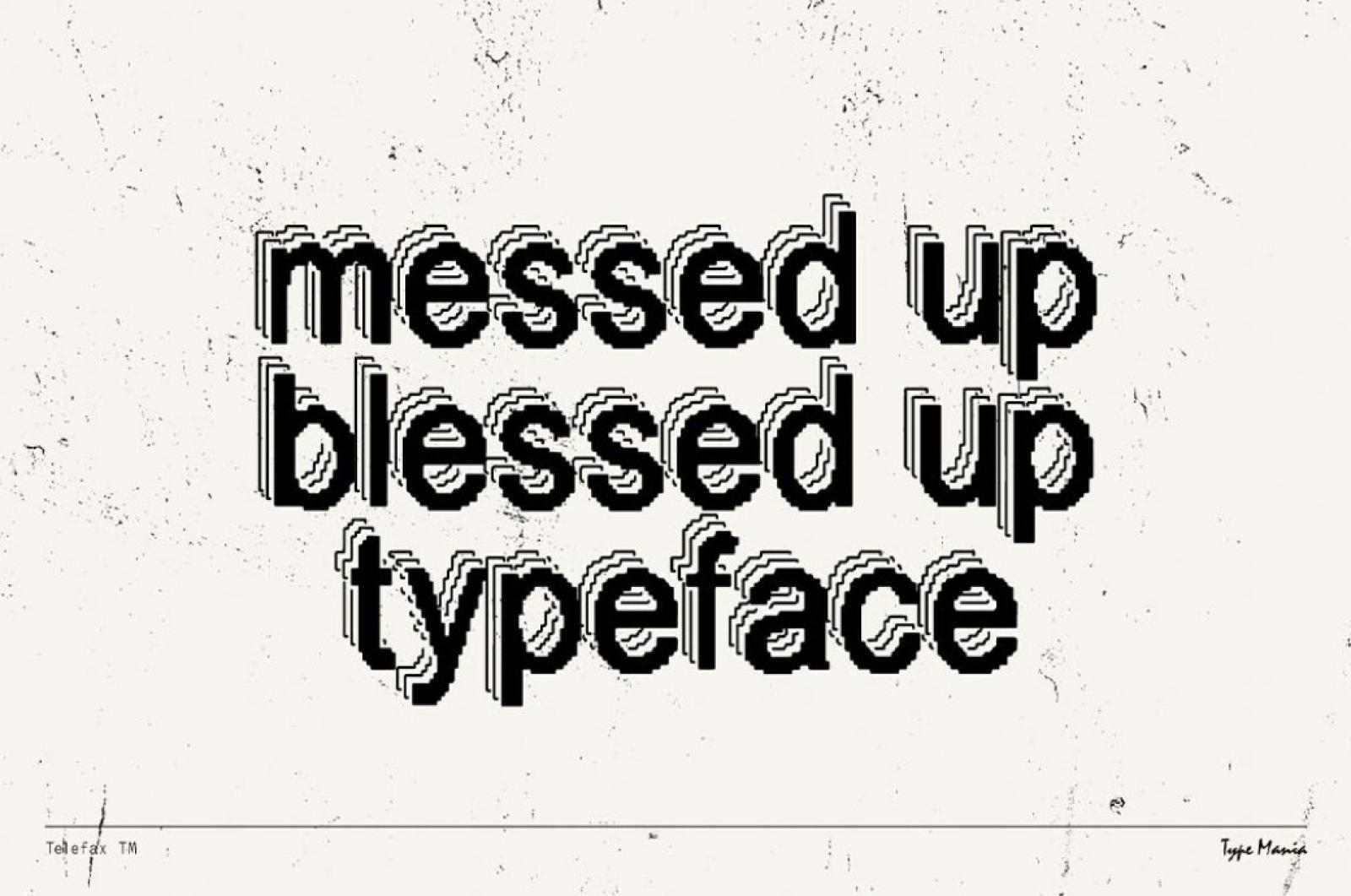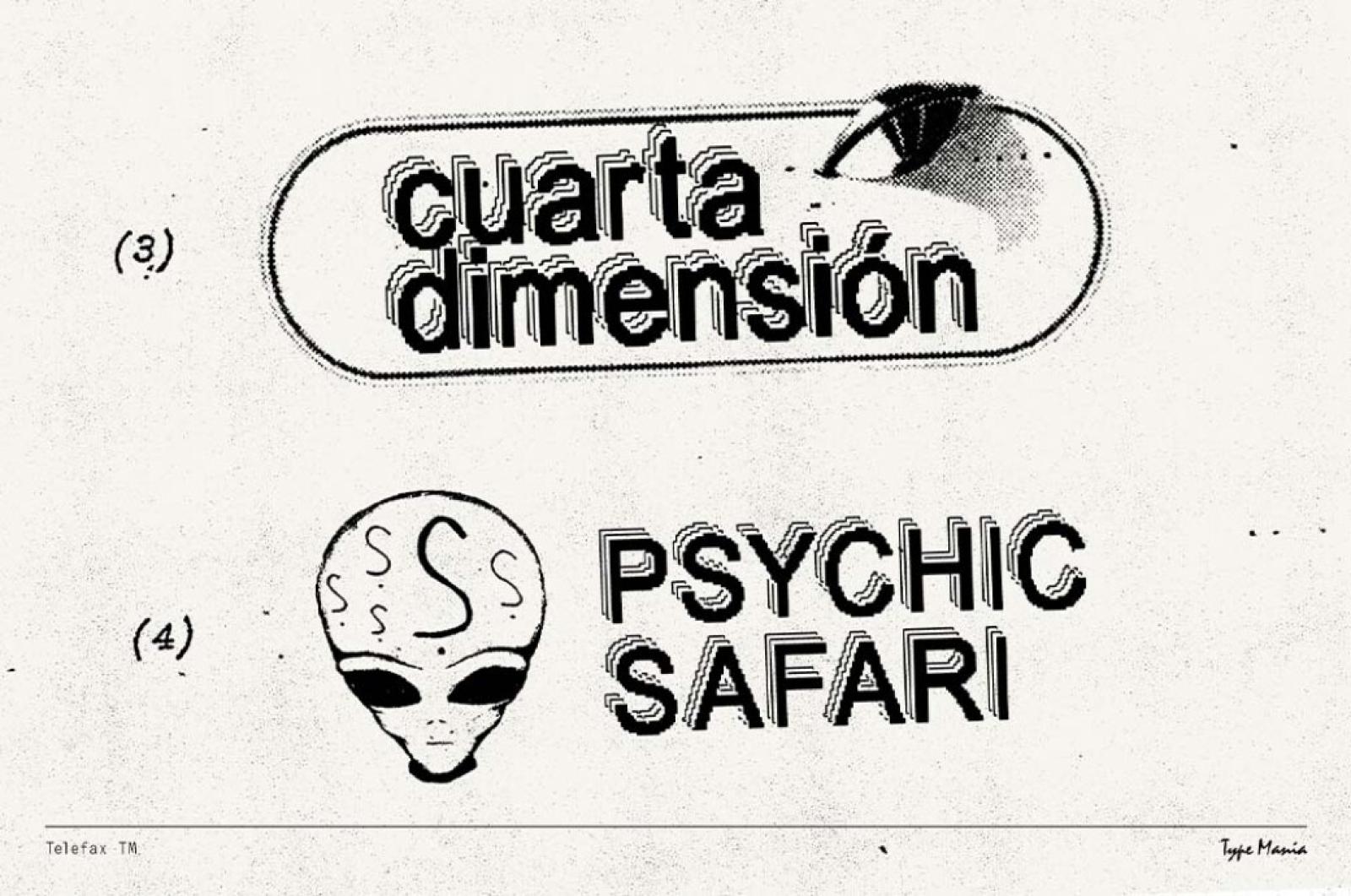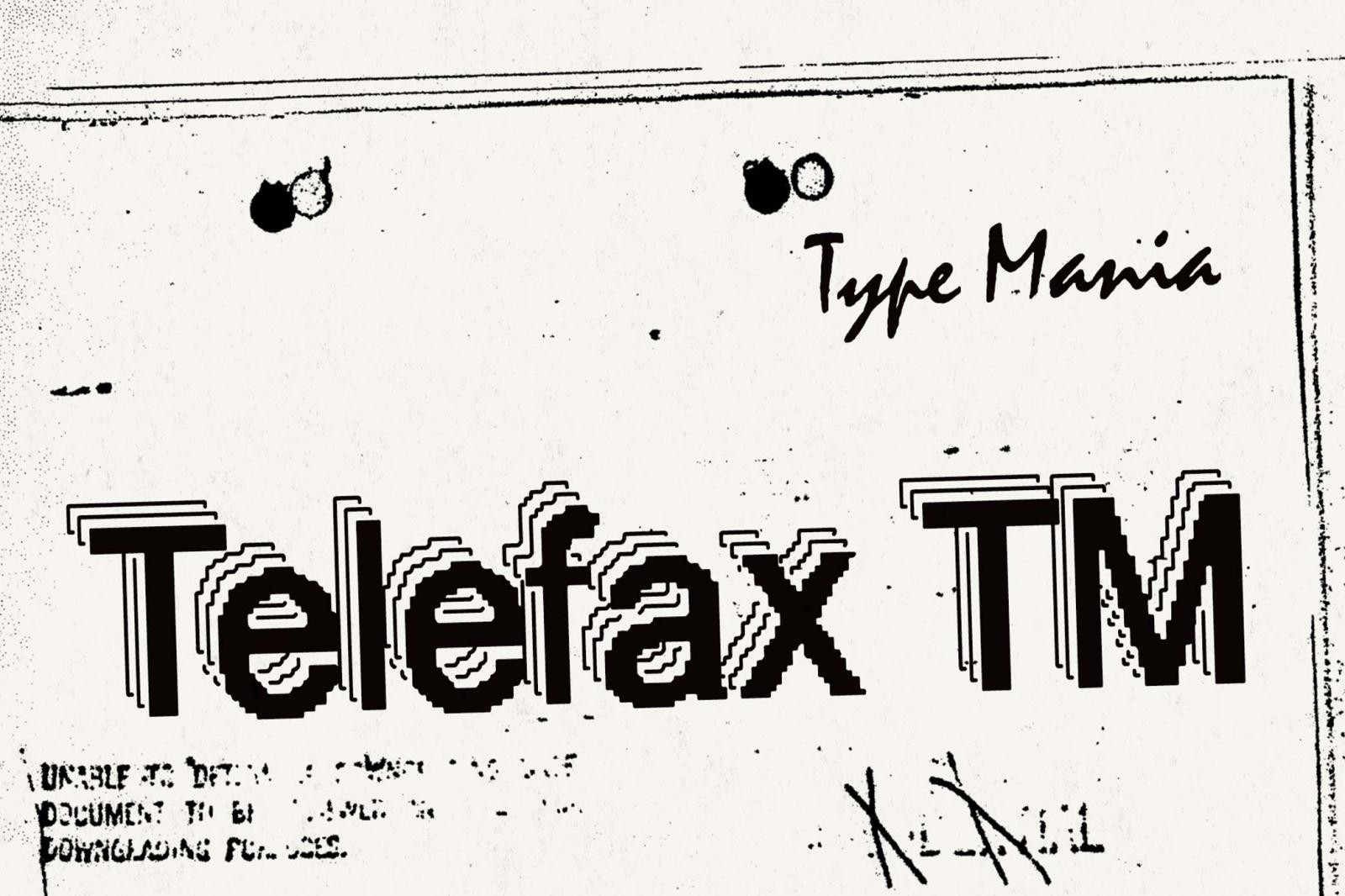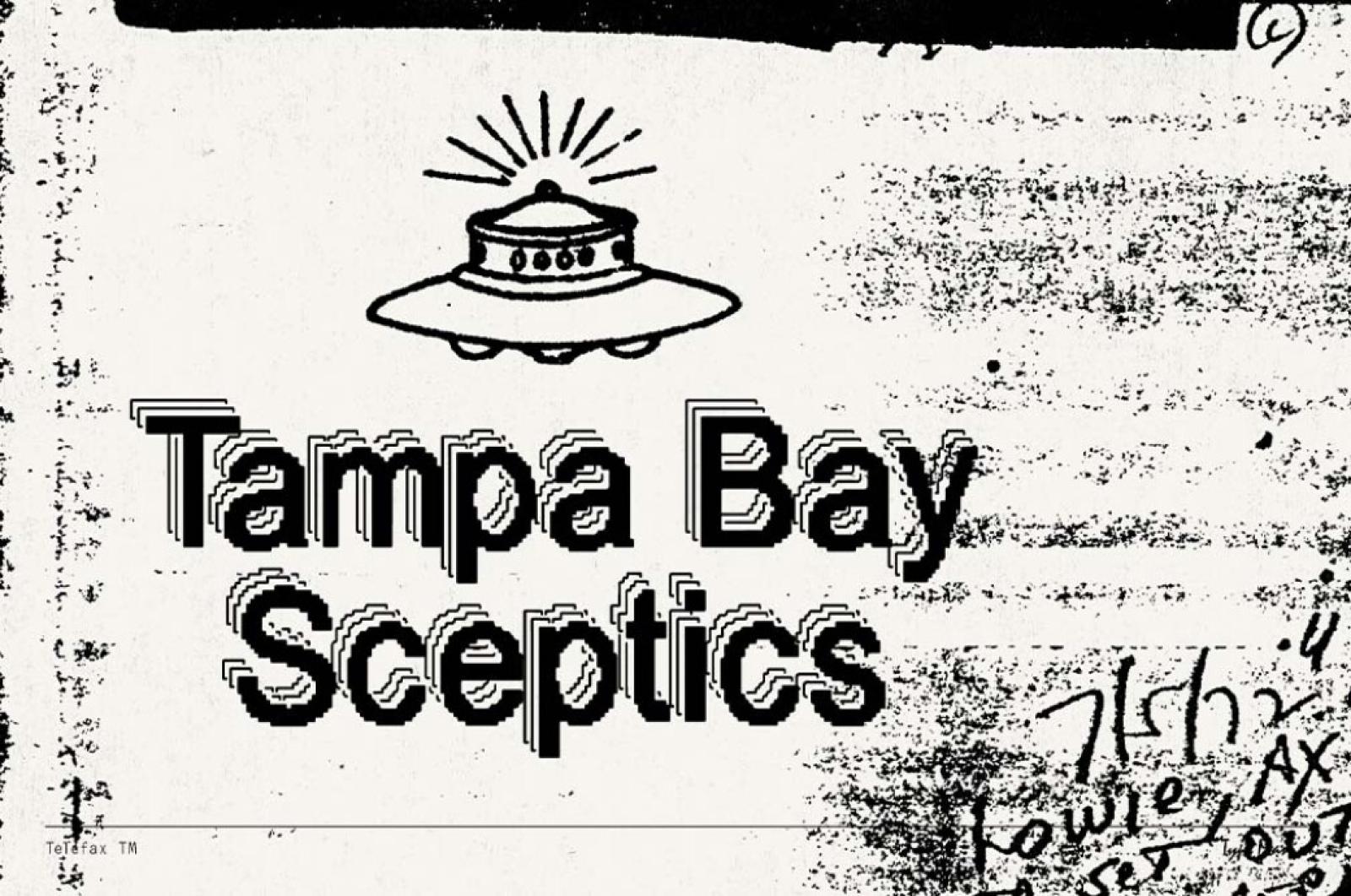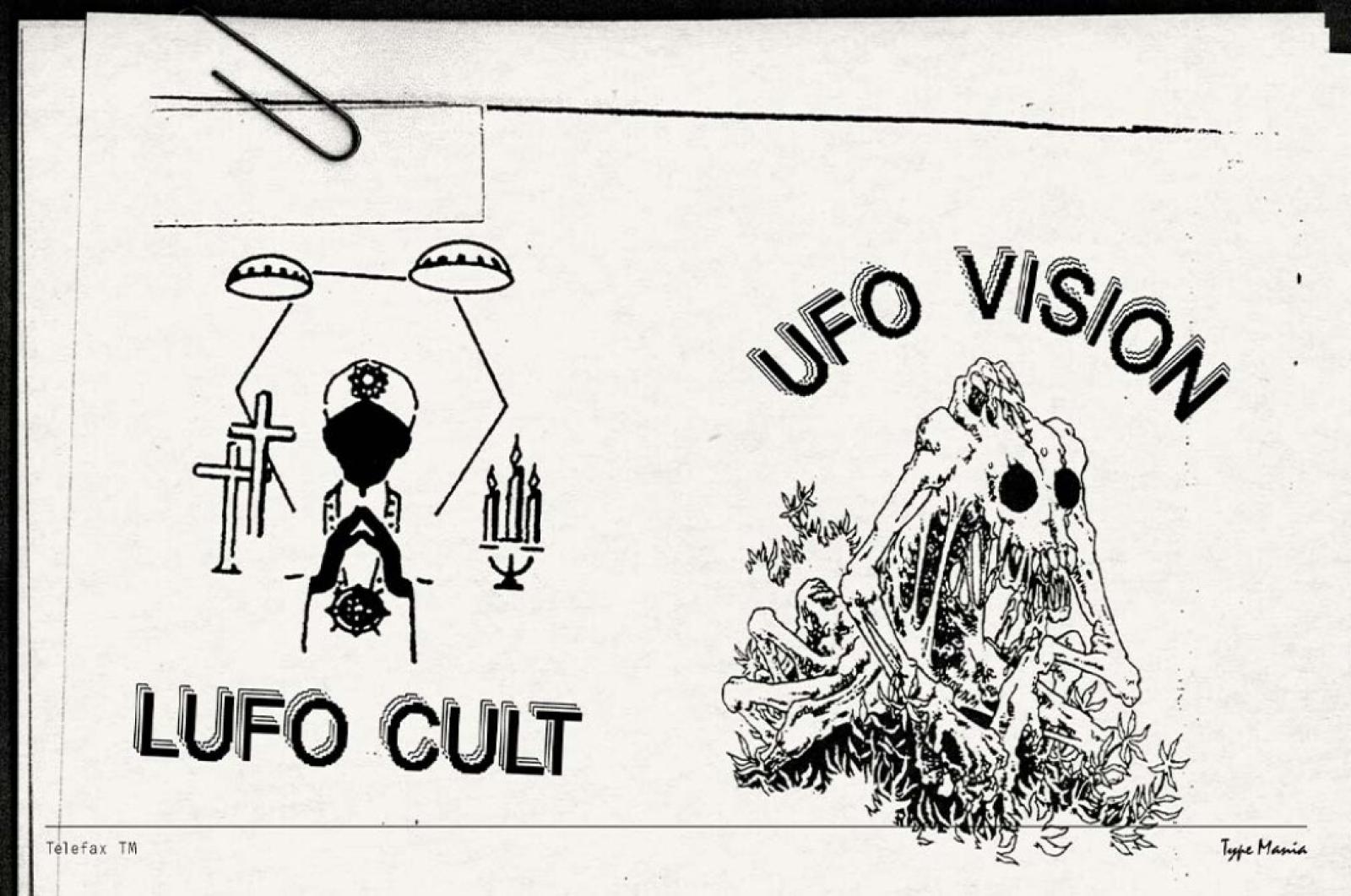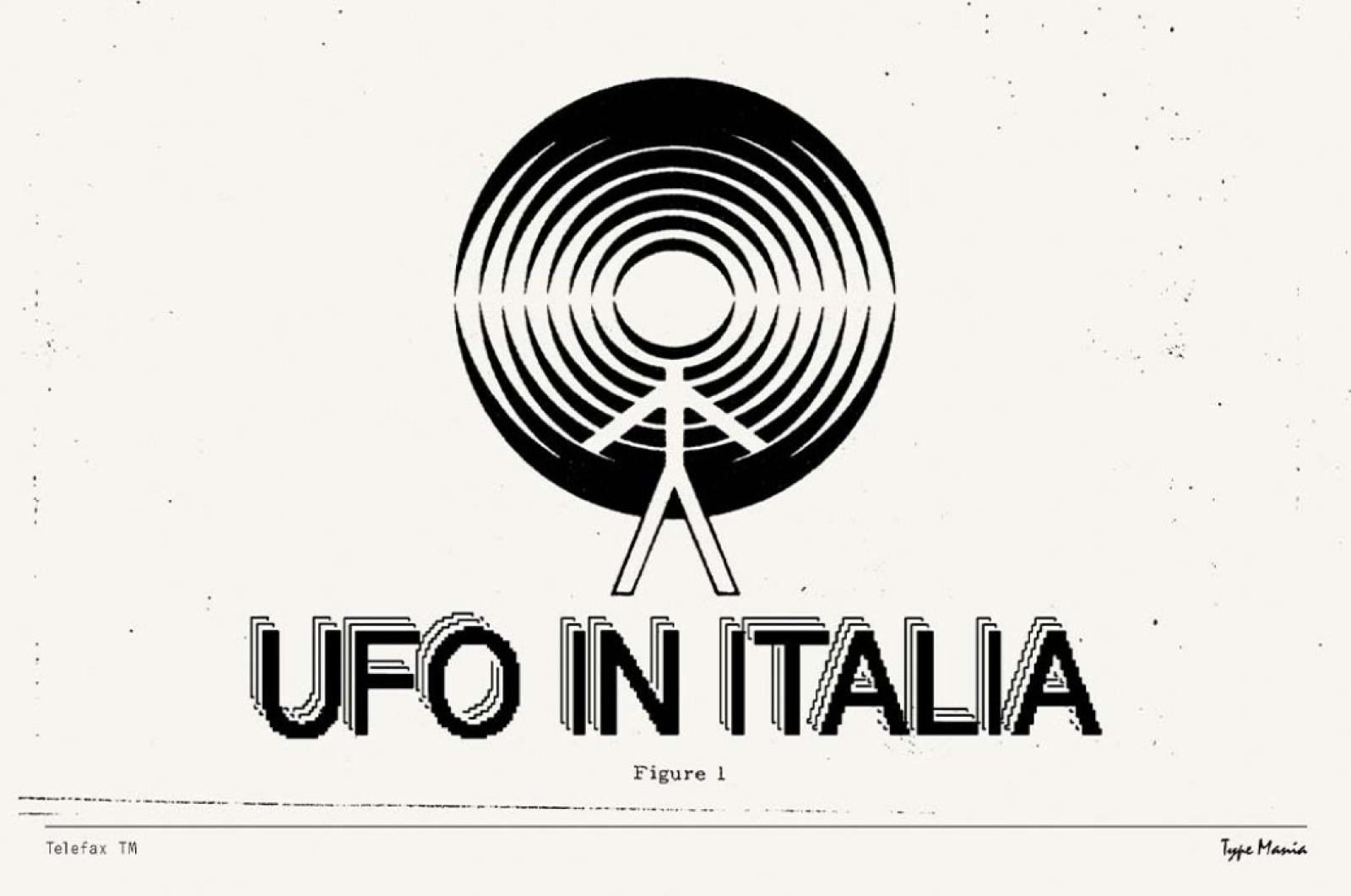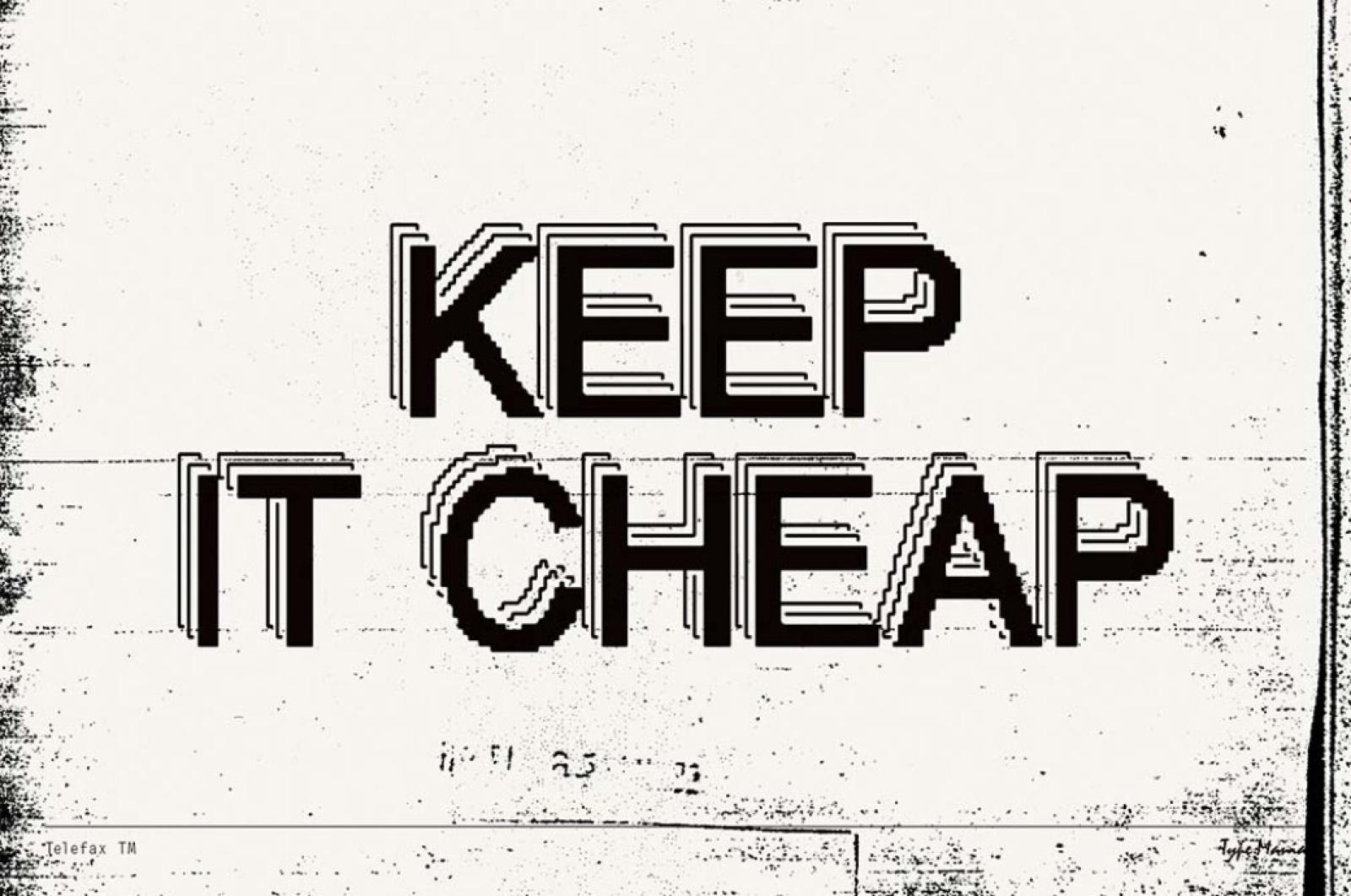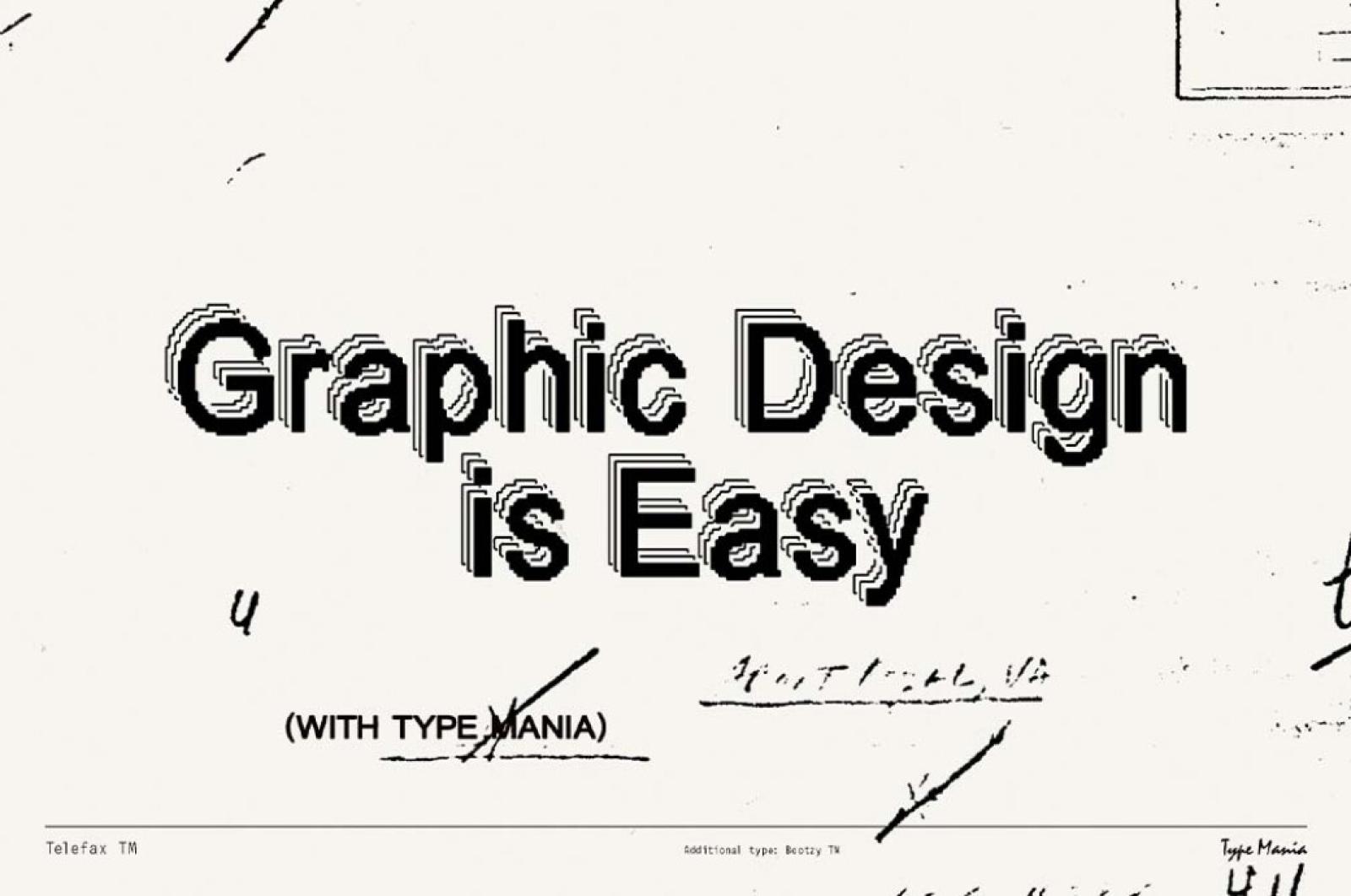
Telefax TM — Eroded Fax Typeface
There were the days when ASCII art semigraphics ruled and black-and-white low-fi clipart was the peak of digital artistry. This font encapsulates the essence of that old-school computer aesthetic, ready to infuse it into any of your design projects.
You know, such gems as Telefax TM just prove that the high-definition graphics and complex color schemes are quite overrated. This distressed typeface is perfect for adding a touch of nostalgic charm to posters, flyers, social media graphics, and many more. The comprehensive set of 200 glyphs including upper and lowercase, punctuation, symbols, numerals, and multilingual support provides enough creative versatility to become a great asset in your design journey.